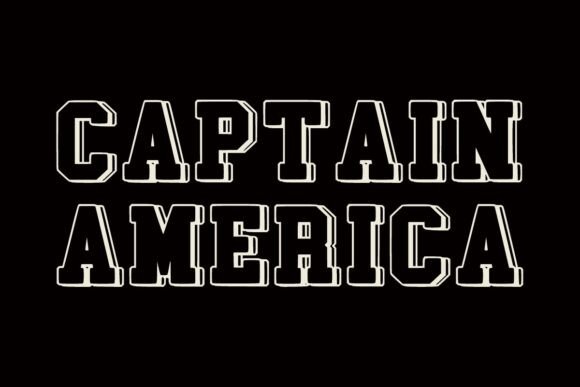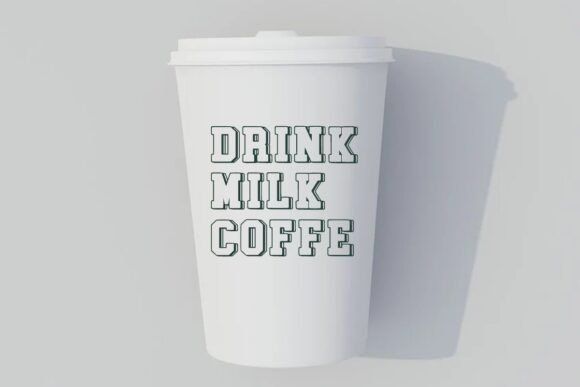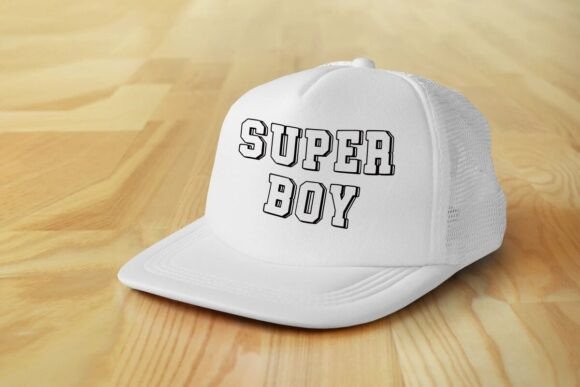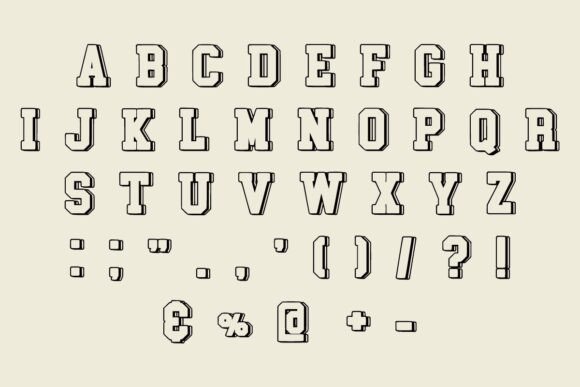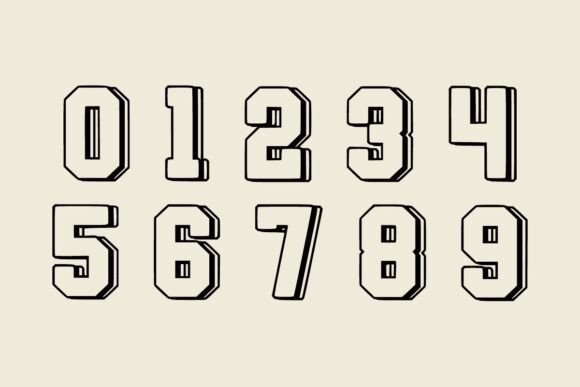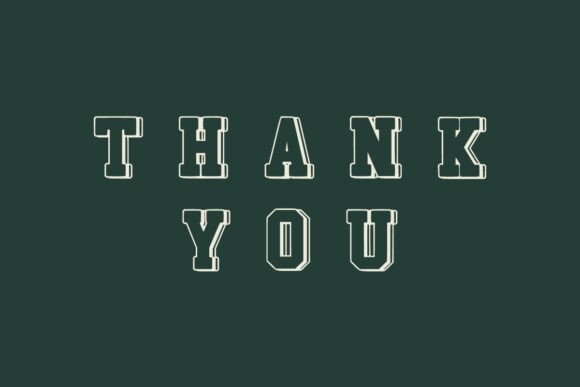
The Perfect Font for a Winter Wonderland
As the snowflakes start to fall and the holiday lights twinkle to life, there’s something magical about the season that inspires us to create something special. Maybe it’s the nostalgia of childhood memories, or the excitement of hosting a festive gathering with loved ones – whatever it is, it’s the perfect time to break out the creative tools and get to work.
Enter the Brody Sport Font, a charming outline college vintage font that’s tailor-made for winter and holiday branding projects. With its retro charm and modern appeal, this versatile font is the perfect addition to any designer’s toolkit. Whether you’re crafting product packaging, designing invitations, or creating text effects, the Brody Sport Font is a valuable asset that’s sure to add a touch of festive flair to your work.
Brody Sport Font Key Features
- Font Family: Brody Sport, a modern sports font designed for athletic branding and signage.
- Unique Characteristics: The font features a unique blend of modern and vintage elements, with clean lines, geometric shapes, and a dynamic feel.
Review: Brody Sport Font
Overall, I’d say the Brody Sport Font is a decent addition to any designer’s toolkit. It’s got a certain charm to it, reminiscent of classic sports logos from the past.
- The font’s bold and playful feel makes it perfect for creating energetic and lively designs, such as sports-themed merchandise or advertisements.
- The font’s versatility allows it to be used in a variety of contexts, from logos to typography-heavy designs.
- The font’s unique, hand-drawn feel gives it a distinctive personality that can add character to a design.
- The font may not be suitable for formal or professional designs, as its playful feel may come across as unprofessional.
- The font’s lack of subtlety can make it overwhelming in certain designs, so it’s best to use it sparingly.
- The font’s limited character set may limit its use in certain contexts, such as long blocks of text.
While the Brody Sport Font has its limitations, it’s a fun and energetic font that can add a lot of personality to a design. It’s perfect for designers looking to create lively and attention-grabbing designs, but may not be the best choice for more formal or professional projects.
The Brody Sport Font is perfect for sports-themed designs, such as jerseys, posters, and social media graphics. It’s also great for creating a fun and energetic atmosphere for events and promotions.
For optimal results, use the Brody Sport Font in conjunction with bold colors and graphics to create a dynamic and eye-catching design.
Alternatives to Brody Sport Font
1. Rockwell Font
The Rockwell font is a classic, clean serif font that is perfect for use in sports branding, particularly for teams that want to convey a sense of tradition and professionalism. It has a strong, sturdy feel that works well for headlines and titles, but can also be used for body text.
Compared to Brody Sport Font, Rockwell is more formal and traditional, while Brody is more modern and edgy. Rockwell is a good choice for teams that want to appeal to a wider audience, while Brody is better suited for teams that want to stand out.
2. Bangers Font
The Bangers font is a bold, graffiti-inspired font that is perfect for use in sports branding that wants to convey a sense of energy and excitement. It is great for use in headlines and titles, and can also be used for body text in a more subtle way.
Compared to Brody Sport Font, Bangers is more energetic and playful, while Brody is more modern and sleek. Bangers is a good choice for teams that want to appeal to a younger audience, while Brody is better suited for teams that want to convey a sense of sophistication.